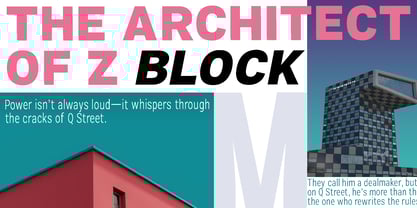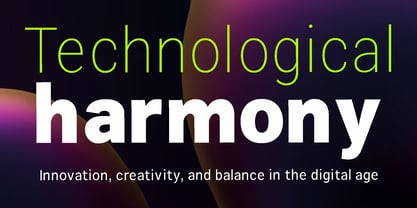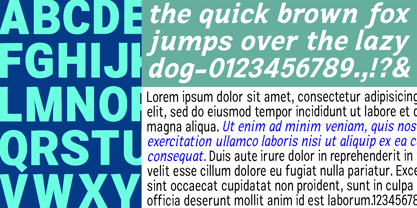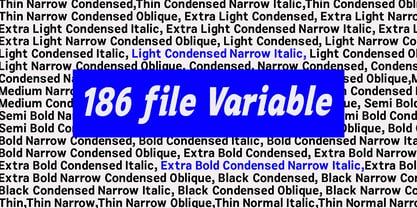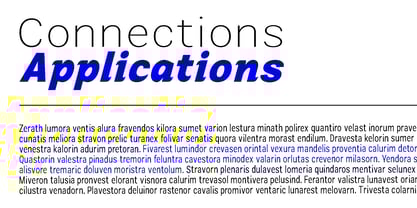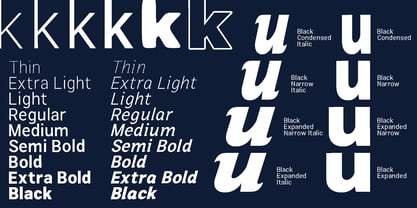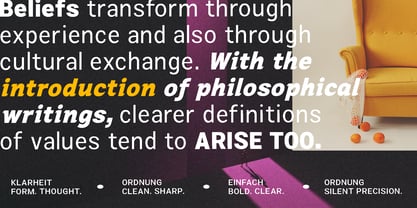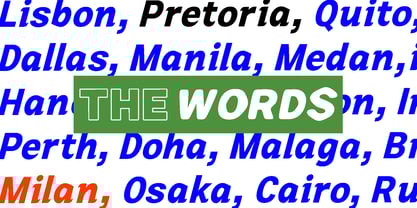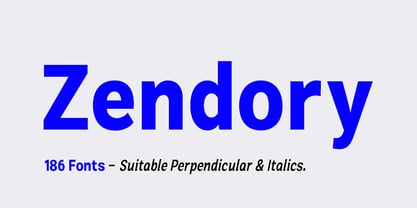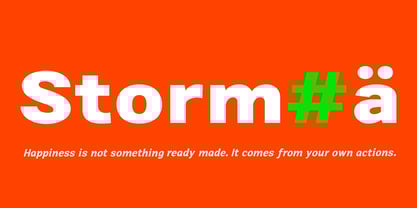
Zendory
by Positive Type
The Zendory Font Family was designed by Nur Hayati and published by Positive Type. Zendory contains 186 styles and family package options. More about this family
Zendory – Bold, Modern, and Versatile
Zendory is a modern sans-serif font with a strong, clean, and professional character. Its design strikes the perfect balance between visual impact and readability, making it an ideal choice for a wide range of design needs.
With 186 font styles, including both perpendicular and italic variations, Zendory offers complete flexibility for creative typography exploration. It works beautifully across different applications, such as:
• Headlines & Branding – bold, memorable, and highly recognizable.
• Editorial & Body Text – versatile weights with excellent readability.
• Digital & Print Media – consistent, sharp, and appealing across all sizes.
Whether you are building a strong brand identity, crafting elegant editorial layouts, or designing modern digital experiences, Zendory delivers a truly versatile typographic solution.
Designers: Nur Hayati
Foundry: Positive Type